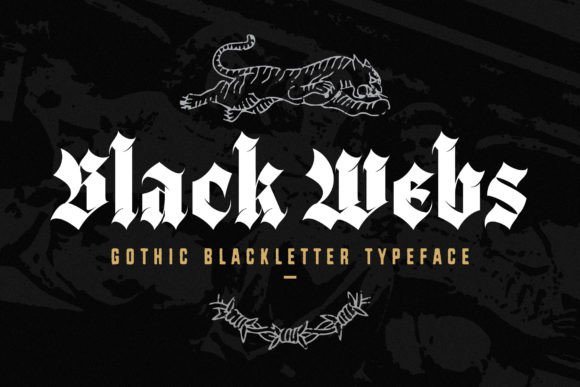
Black Webs Font: A Gothic Blackletter Typeface for Dramatic Designs
Are you looking for a font that embodies the dark, mysterious allure of medieval design with a modern twist? Look no further than Black Webs, a Gothic Blackletter Typeface that is perfect for creating dramatic, eye-catching visuals. In this article, we’ll explore the features and benefits of Black Webs, and how it can elevate your designs to the next level.
Key Features of Black Webs Font
- Bold and Intricate Strokes: Black Webs features bold, intricate strokes that give it a unique and dramatic appearance.
- Sharp and Angular Forms: The font’s sharp, angular forms add to its gothic and medieval aesthetic.
- Uppercase and Lowercase Letters: Black Webs comes with both uppercase and lowercase letters, making it versatile for a wide range of design applications.
- Punctuation and Numerals: The font includes punctuation and numerals, ensuring that you have everything you need to create professional-looking designs.
- Ligatures and Alternate Characters: Black Webs features ligatures and alternate characters, giving designers the ability to create unique and personalized typography.
- Multilingual Support: The font supports multiple languages, making it a great choice for designers who work with international clients.
Design Applications for Black Webs Font
Black Webs is a versatile font that can be used in a wide range of design applications, including:
- Branding: Use Black Webs to create bold and eye-catching logos that make a statement.
- Album Covers: The font’s gothic and medieval aesthetic makes it perfect for album covers and music-related designs.
- Tattoo Designs: Black Webs’ bold and intricate strokes make it a great choice for tattoo designs that require a strong and dramatic look.
- Posters: Use the font to create eye-catching posters that grab attention.
- Logos: Black Webs is ideal for creating logos that require a strong and bold aesthetic.
- Game Design: The font’s unique and dramatic appearance makes it perfect for game design and UI elements.
- Movie Titles: Use Black Webs to create bold and eye-catching movie titles that set the tone for your film.
- Packaging Design: The font’s gothic and medieval aesthetic makes it perfect for packaging design that requires a strong and dramatic look.
- Apparel Branding: Use Black Webs to create bold and eye-catching apparel branding that makes a statement.
Editorial Designs and Book Covers
Black Webs is not just limited to bold and dramatic designs. It can also be used in editorial designs and book covers to add a touch of elegance and sophistication. The font’s gothic and medieval aesthetic can add a sense of mystery and intrigue to your designs, making it perfect for:
- Book Covers: Use Black Webs to create eye-catching book covers that grab attention.
- Editorial Designs: The font’s unique and dramatic appearance makes it perfect for editorial designs that require a strong and bold aesthetic.
Benefits for Designers
Black Webs is designed for creative professionals who want to incorporate a strong, gothic aesthetic into their work. The font’s unique features and benefits make it an ideal choice for designers who:
- Want to create bold and eye-catching designs: Black Webs’ bold and intricate strokes make it perfect for designers who want to create dramatic and attention-grabbing designs.
- Need a versatile font: The font’s wide range of features, including uppercase and lowercase letters, punctuation, and numerals, make it versatile for a wide range of design applications.
- Want to add a touch of elegance and sophistication: Black Webs’ gothic and medieval aesthetic can add a sense of mystery and intrigue to your designs, making it perfect for editorial designs and book covers.
Black Webs is a Gothic Blackletter Typeface that embodies the dark, mysterious allure of medieval design with a modern twist. With its bold, intricate strokes and sharp, angular forms, this font is perfect for creating dramatic, eye-catching visuals. Whether you’re a designer looking to create bold and eye-catching designs or add a touch of elegance and sophistication to your work, Black Webs is an ideal choice.